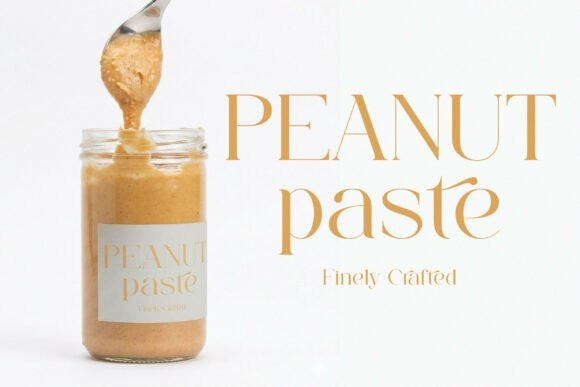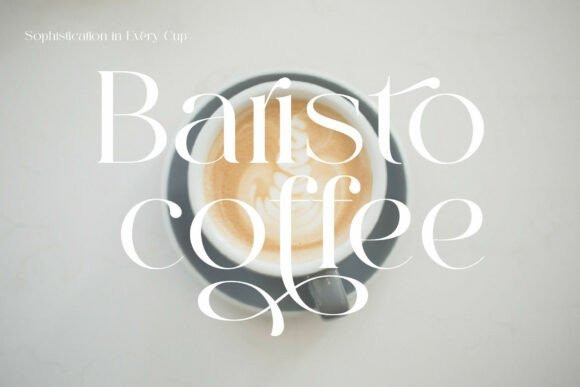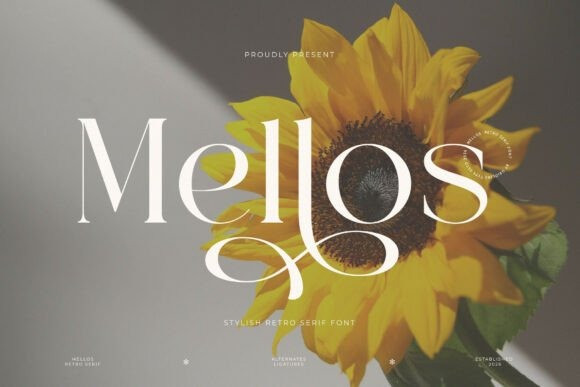
Mellos Font
Mellos Font a breathtakingly elegant display serif typeface. This font features beautifully balanced, high-contrast letterforms uniquely characterized by their razor-sharp serifs, clean structural lines, and sweeping calligraphic loops on the lowercase descenders that bridge the gap between mid-century editorial romance and contemporary luxury lifestyle branding. With its graceful structural footprint and high-end model lookbook confidence, Mellos is the premier choice for independent organic cosmetic labels, luxury winery packaging, boutique fashion logos, bespoke wedding stationery, and high-impact social media headlines.